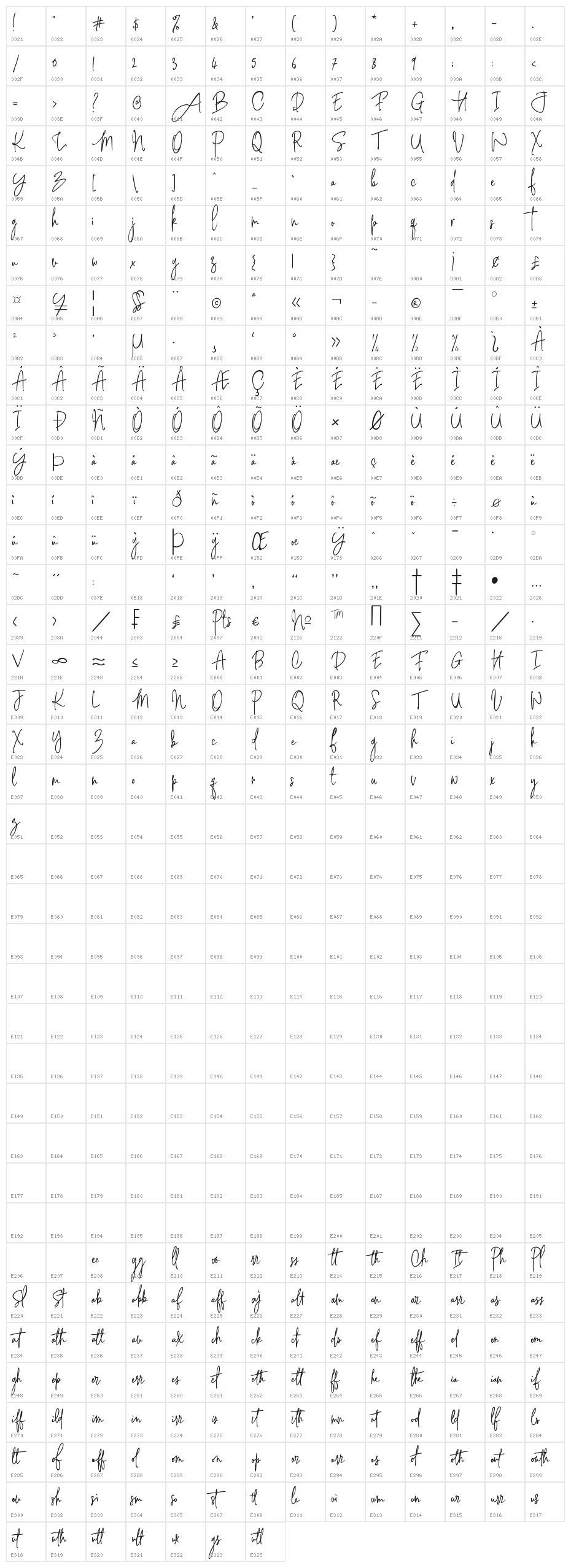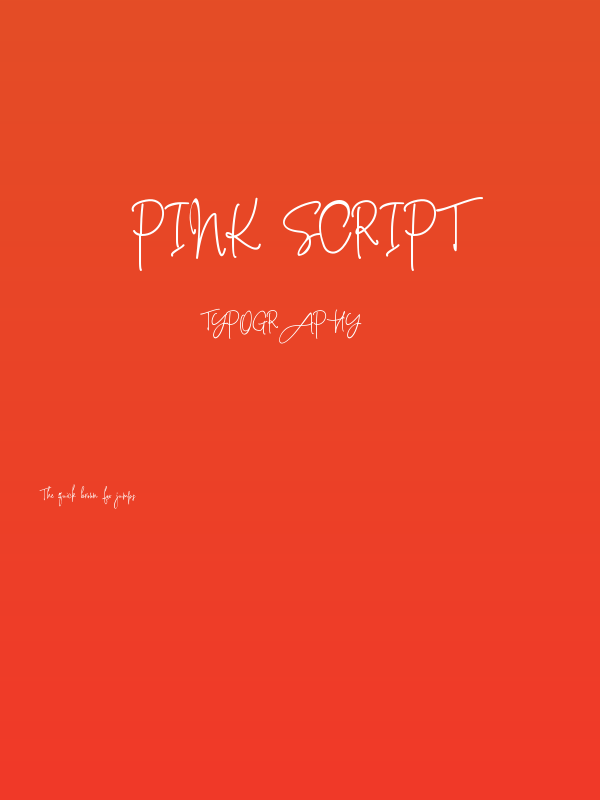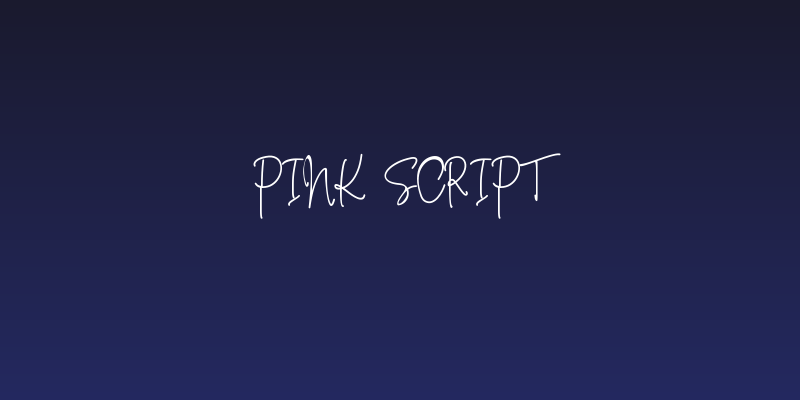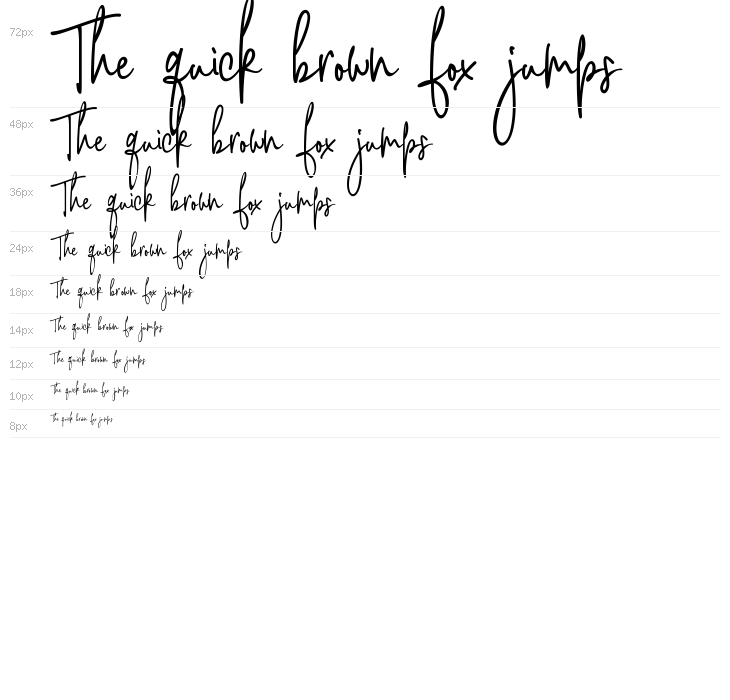
Pink Script Font
Pink Script Description
This font features a flowing, cursive style with a handwritten appearance. The uppercase letters are elegantly elongated, with smooth curves and a slight slant, giving it a sophisticated and artistic look. The lowercase letters maintain a consistent style, with some characters extending below the baseline, adding to its dynamic feel. The numerals are clear and maintain the same flowing style, ensuring readability. Special characters are integrated seamlessly, maintaining the overall aesthetic. This font is ideal for projects that require a personal touch, such as invitations, greeting cards, or branding that seeks a creative and approachable vibe.
| Use Case | Logos, Invitations, Greeting Cards |
| Proposed Projects | Ideal for wedding invitations, greeting cards, personal branding, and artistic projects. |